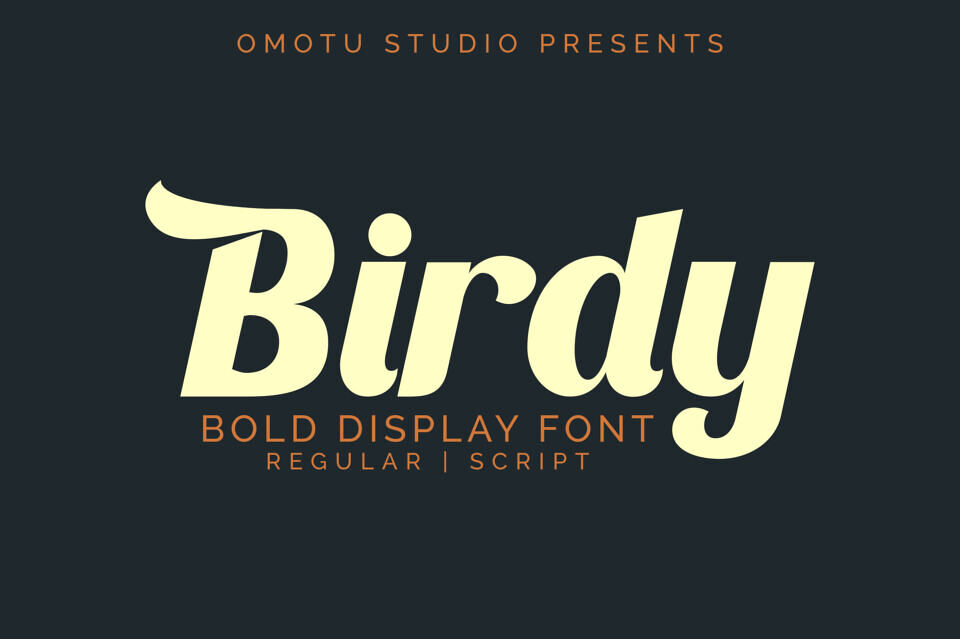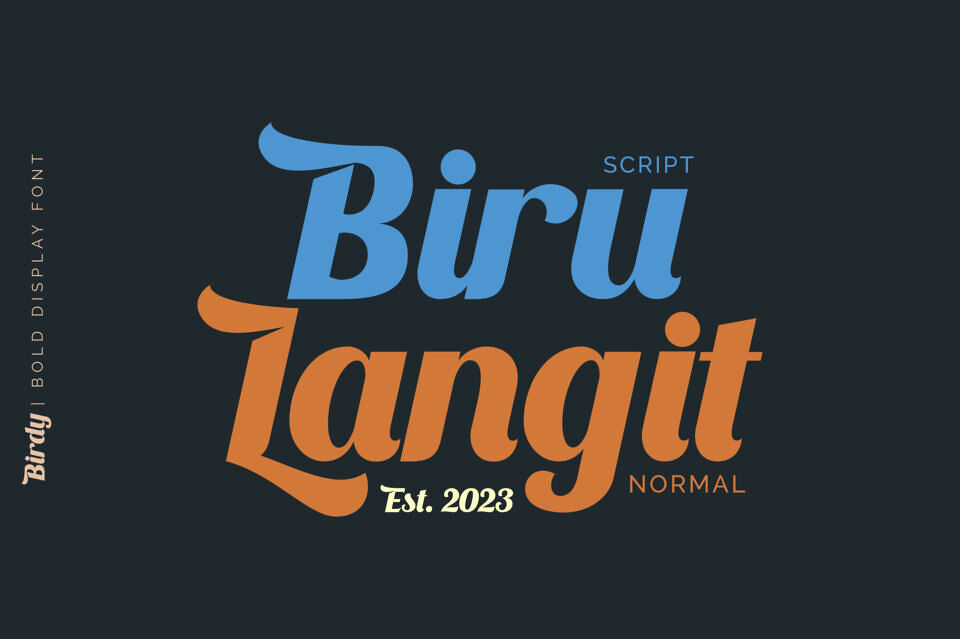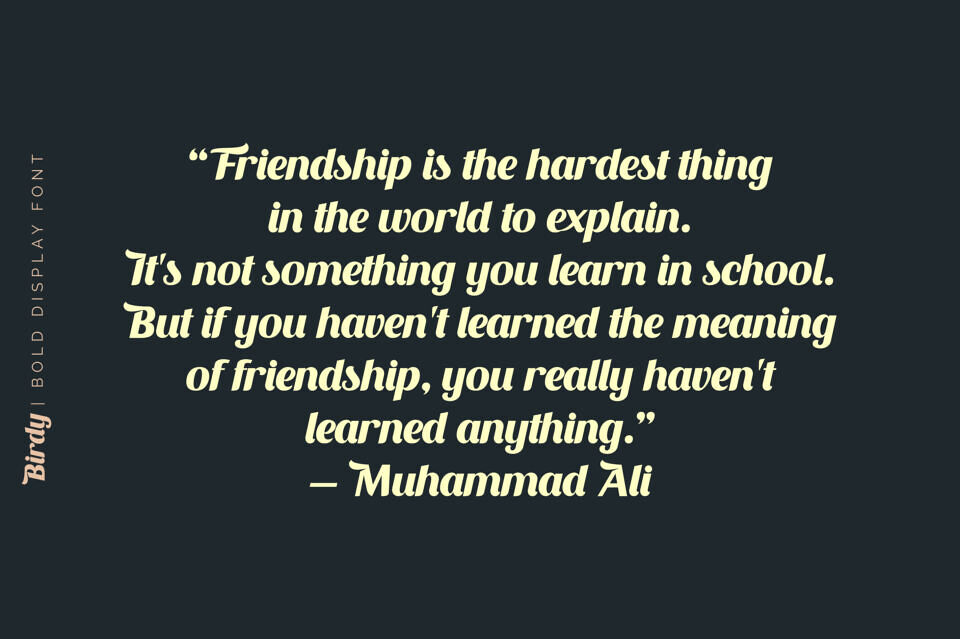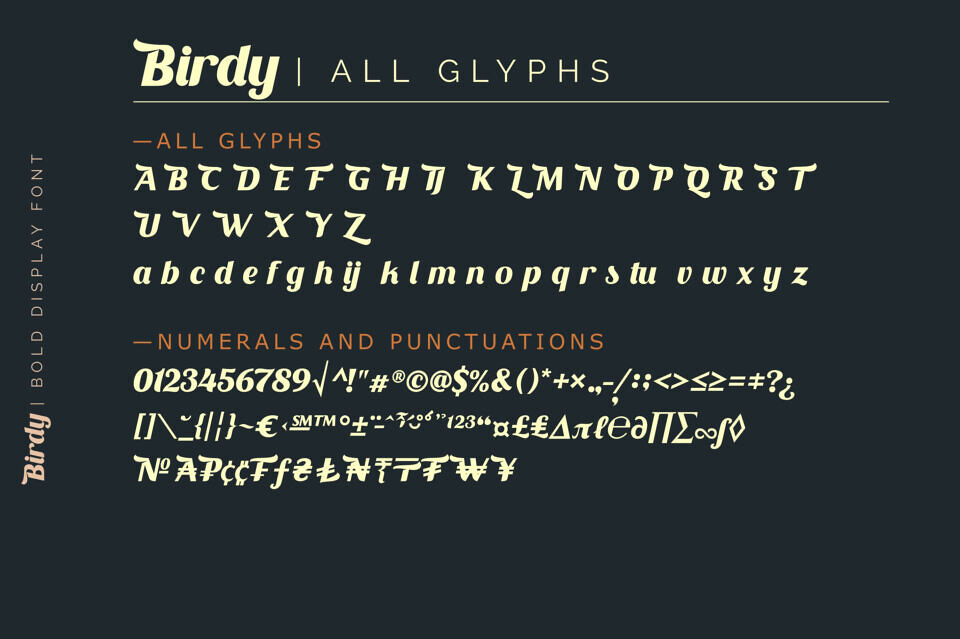
Birdy Font
Birdy is bold display font. Comes with 2 styles, regular and script. Great for heading, logotype, branding, packaging design, poster design, website/display, editorial, headline, advertising, and more.
Designed by: Ibnu Utomo (Omotu Studio)